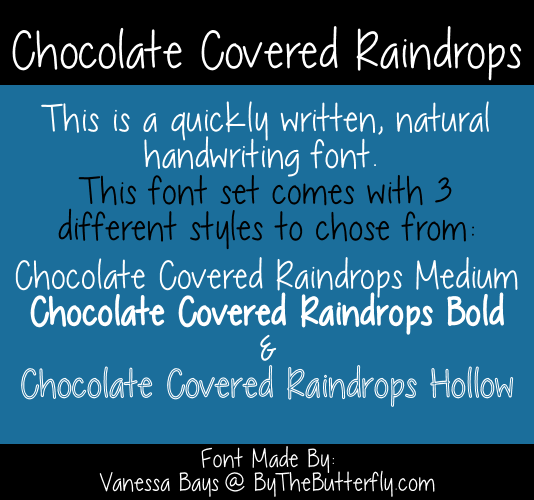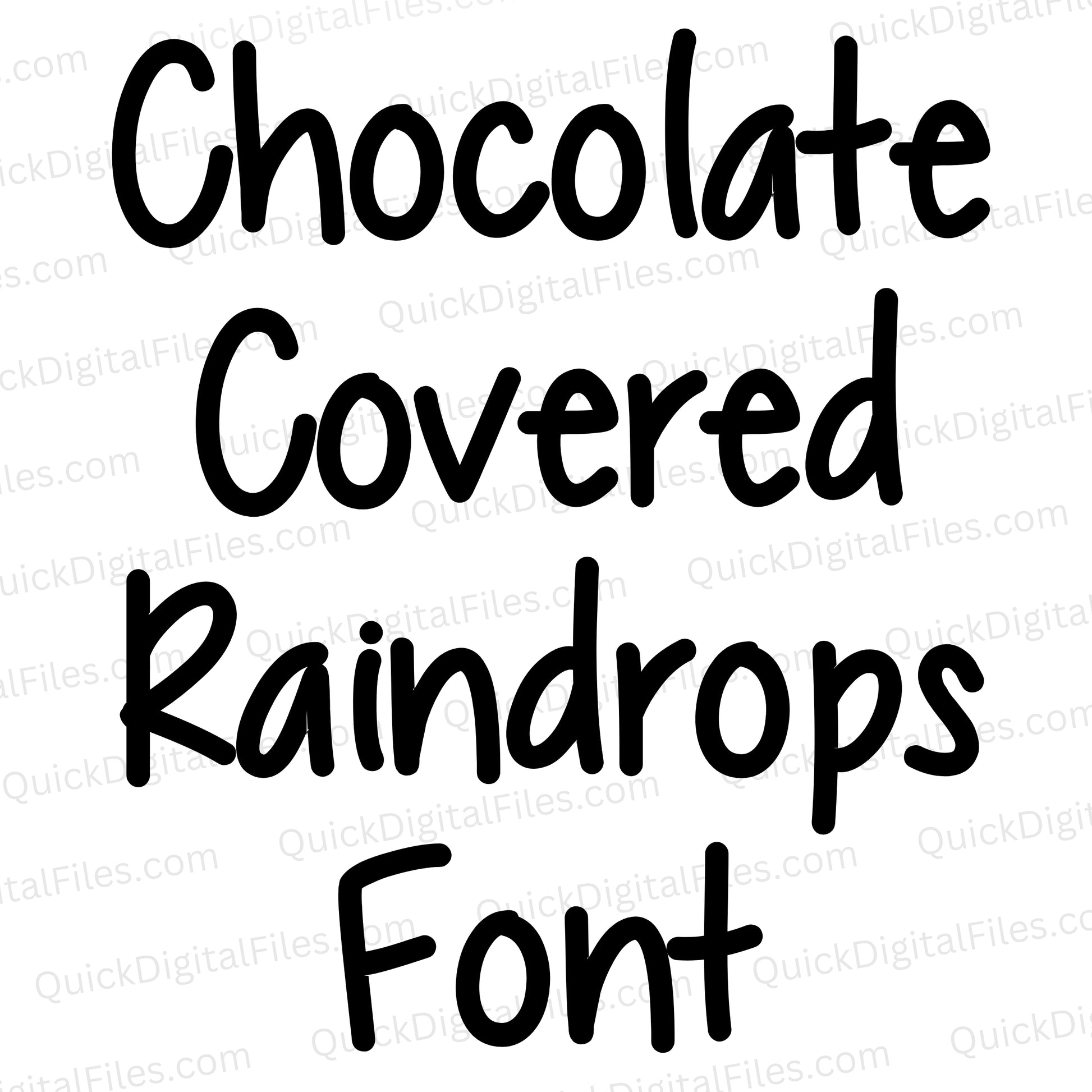
Chocolate Covered Raindrops: Font
✍️ Chocolate Covered Rain Drops Font – Handwritten Style with Personality
Looking for a whimsical, fun, and handwritten font that adds charm to your next project? The Chocolate Covered Rain Drops font has you covered. With three versatile styles—bold, normal, and hollow—this typeface offers a playful yet clean look that works great for everything from classroom materials to creative Cricut designs.
This free-to-download font brings that friendly handwritten touch your designs are missing. Whether you’re making a t-shirt design, a custom mug, or a printable quote for your wall, Chocolate Covered Rain Drops is a standout pick.
🖋️ Why You'll Love This Handwriting Font
It has a casual, happy look perfect for kid designs, holiday cards, or fun signs
You get bold, regular, and outline/hollow versions for full creative control
It's super easy to use in DIY design projects, invitations, or custom gifts